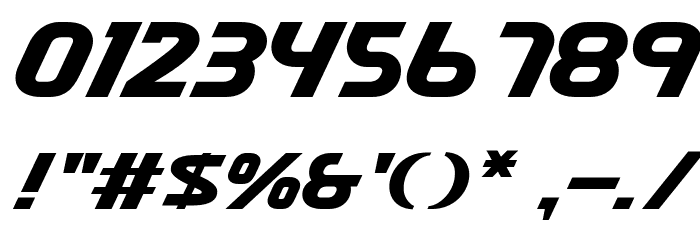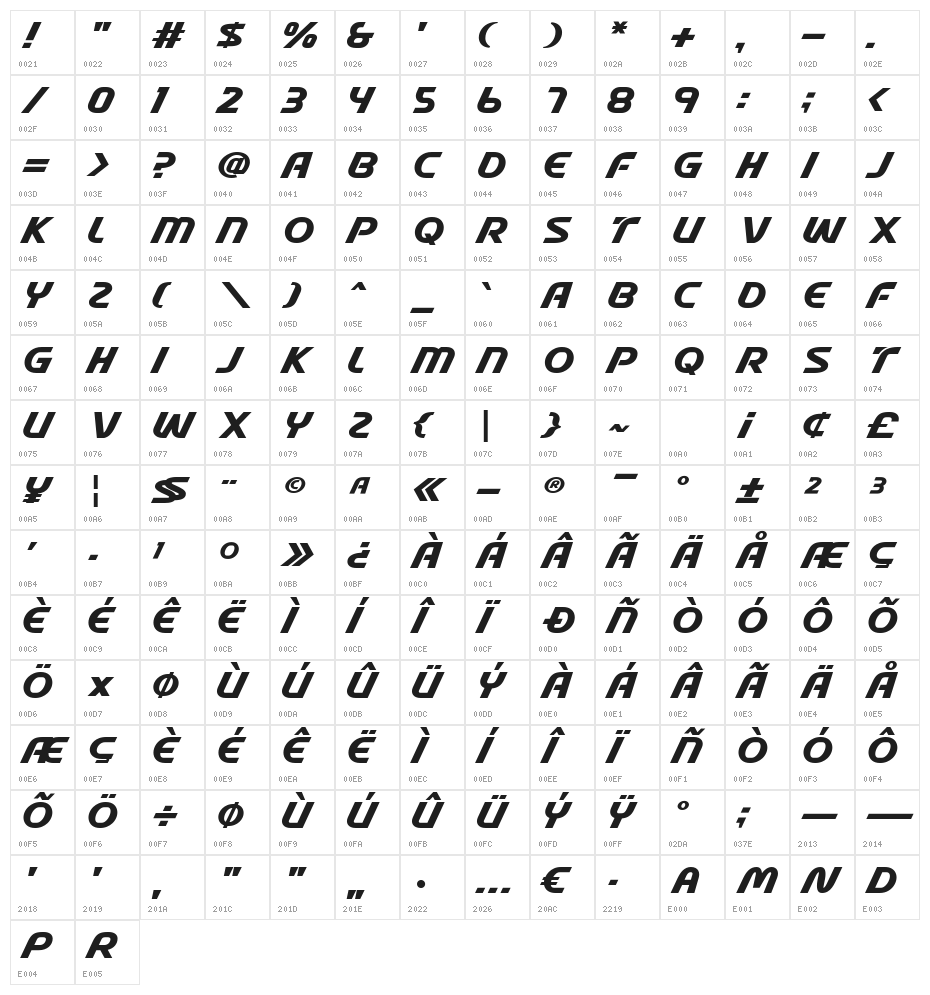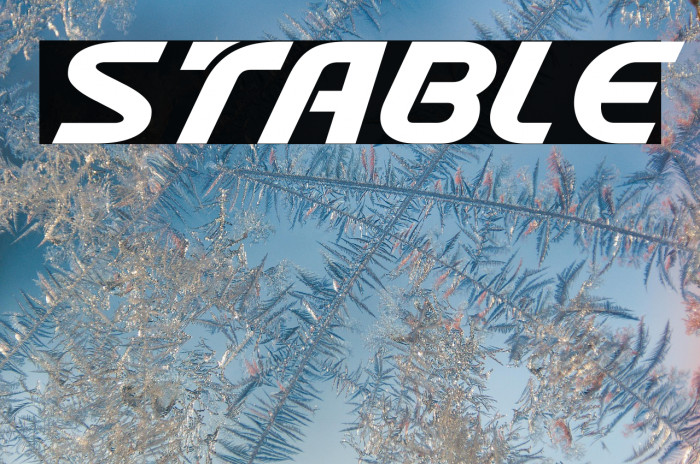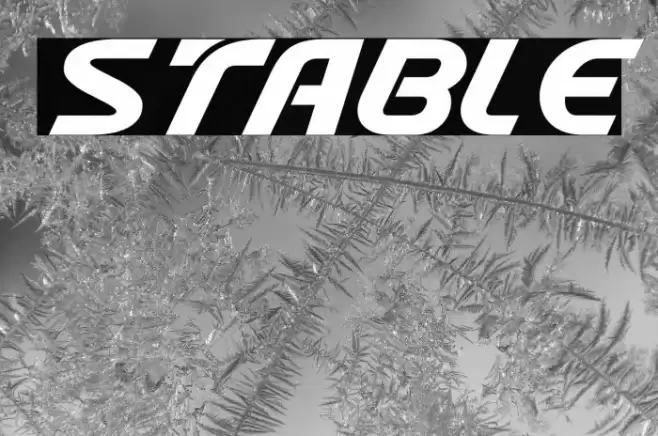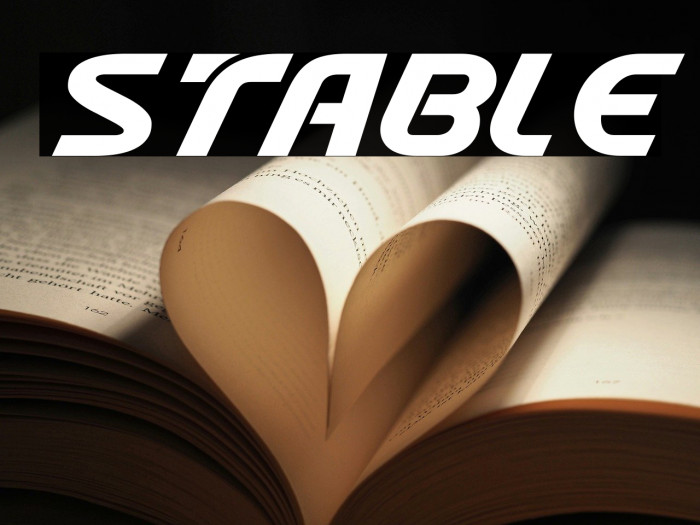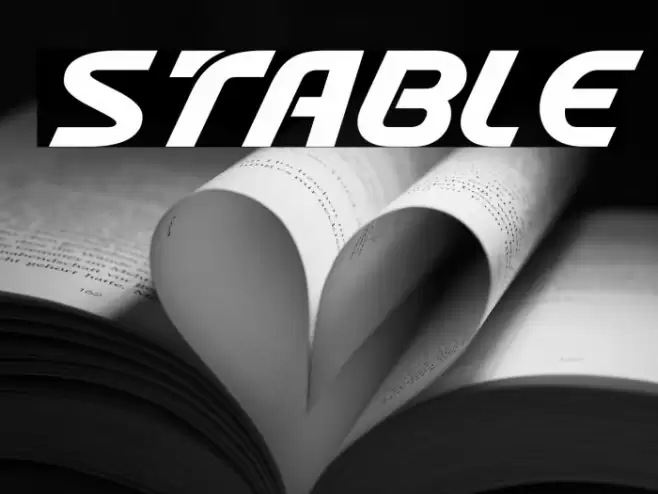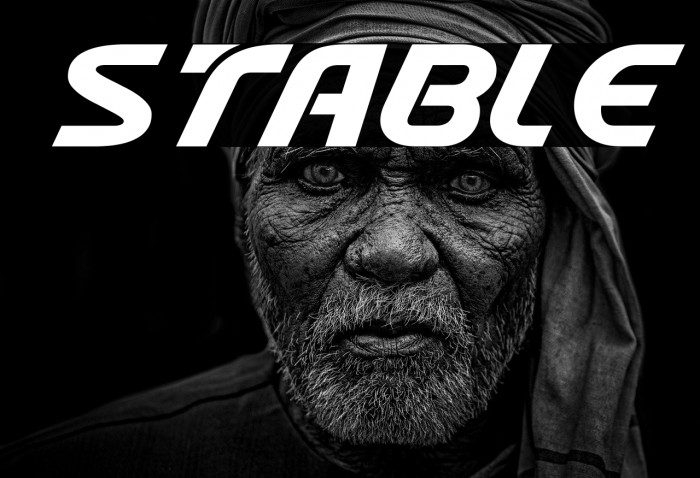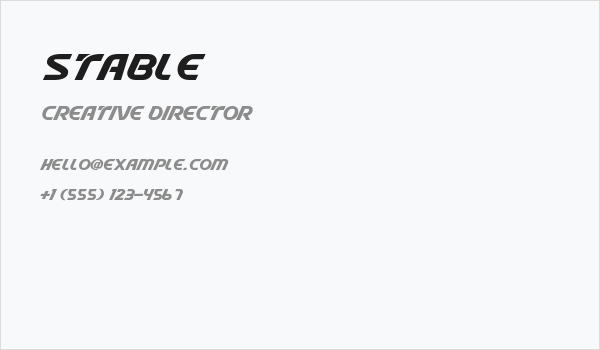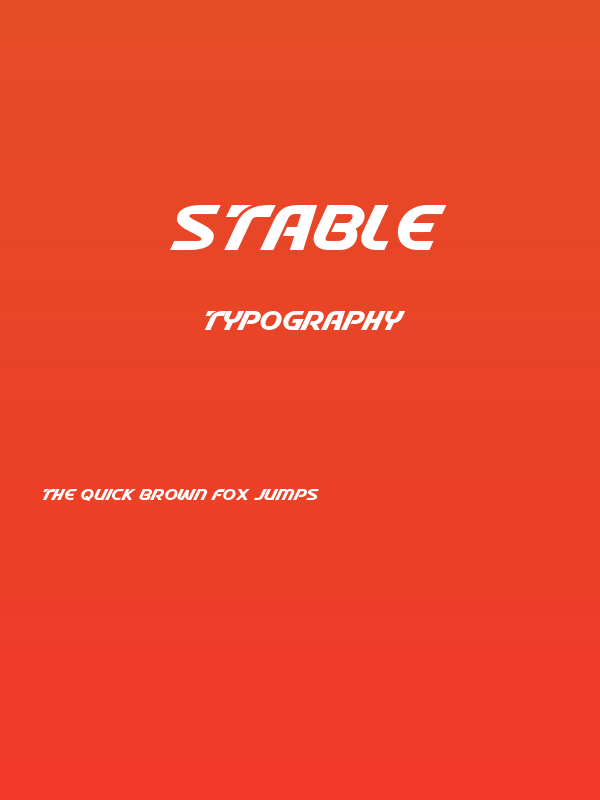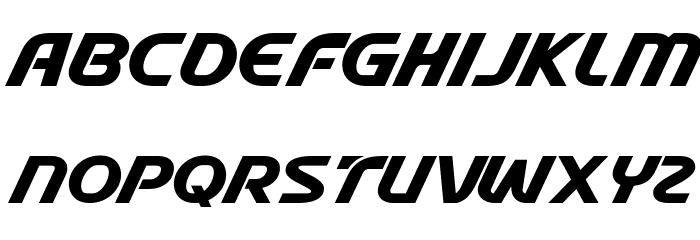
Stable Font
Stable Description
This font features a bold and dynamic style with a forward-leaning italic slant, giving it a sense of motion and speed. The characters are wide and robust, with a consistent stroke thickness that provides a strong visual impact. The uppercase and lowercase letters share a cohesive design, with smooth curves and sharp angles that enhance readability. The numerals are equally bold, maintaining the font's energetic aesthetic. Special characters are included, matching the overall style with a modern and sleek appearance.
| Use Case | Logos, Headlines |
| Proposed Projects | Ideal for branding projects, sports team logos, automotive designs, and dynamic advertising campaigns. |